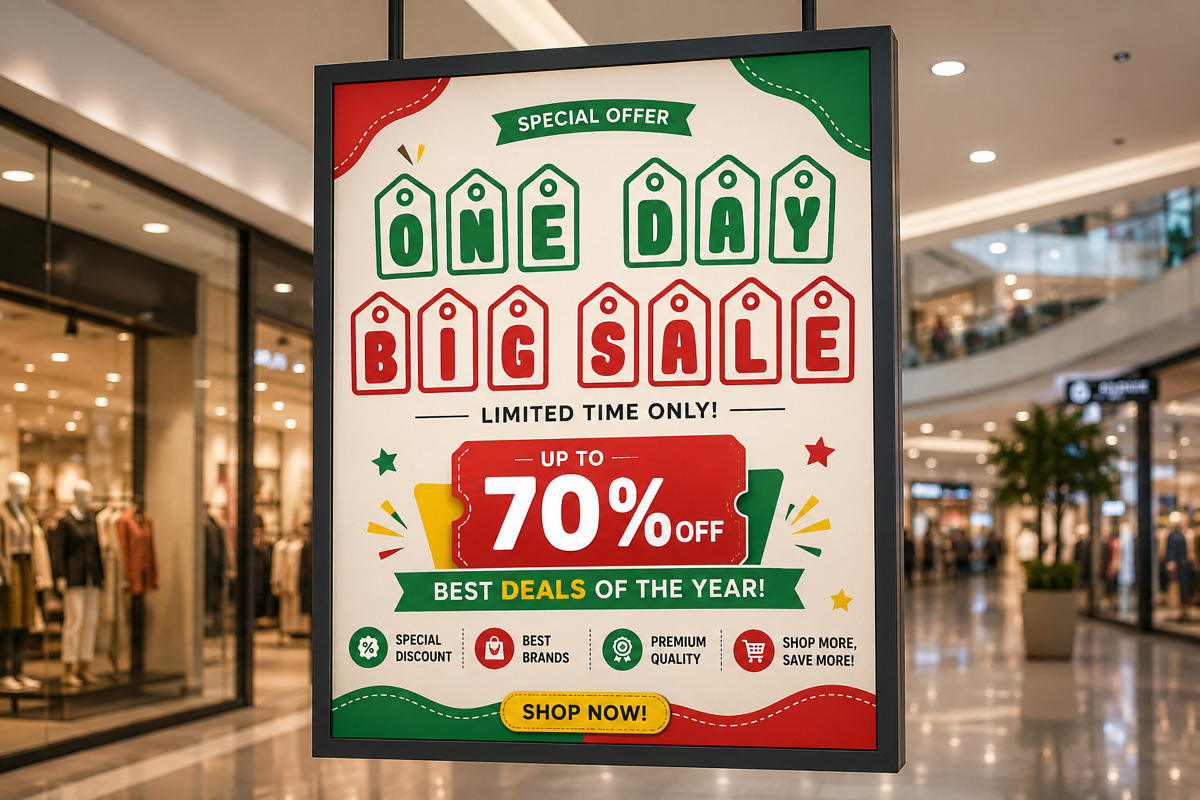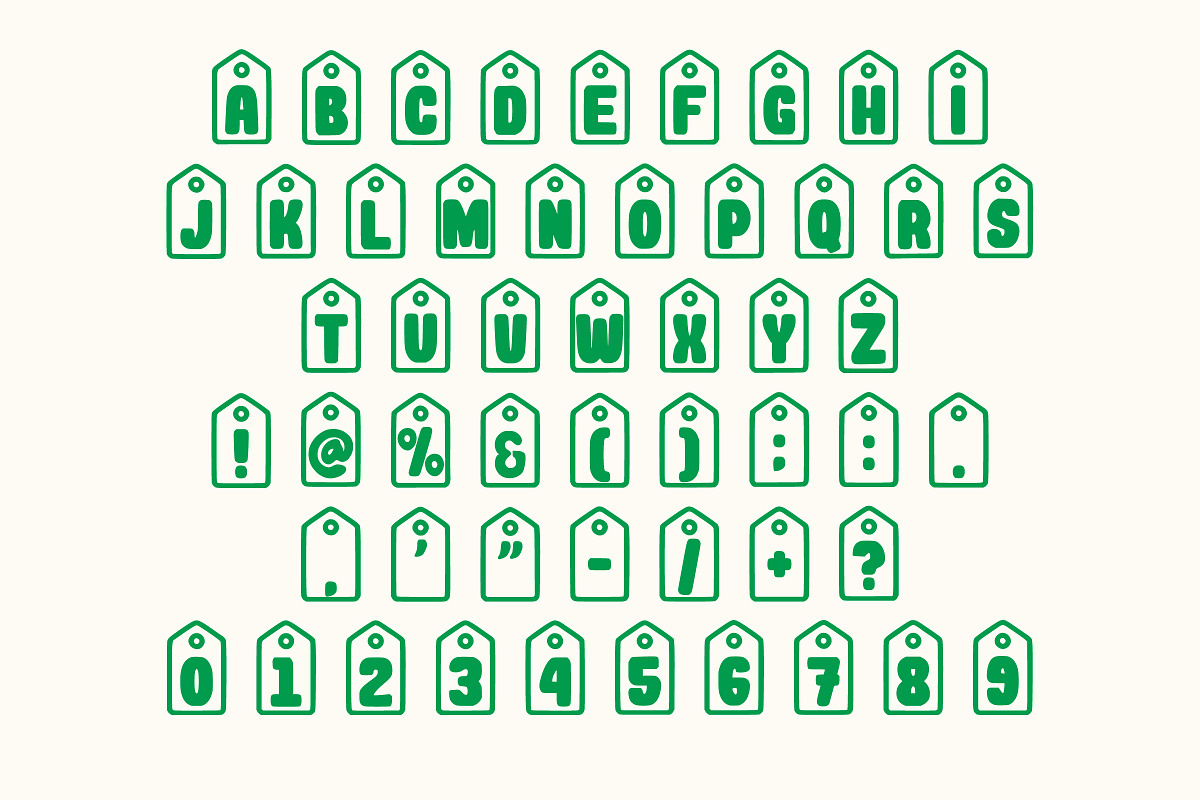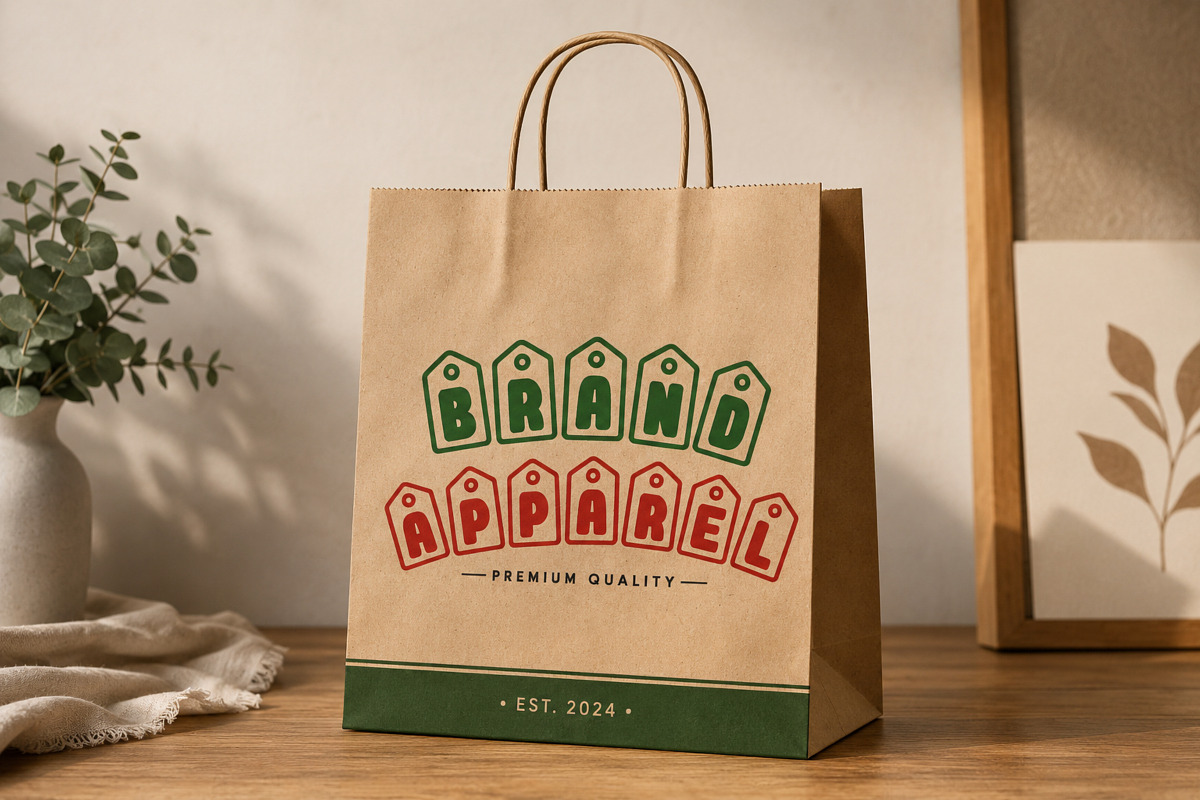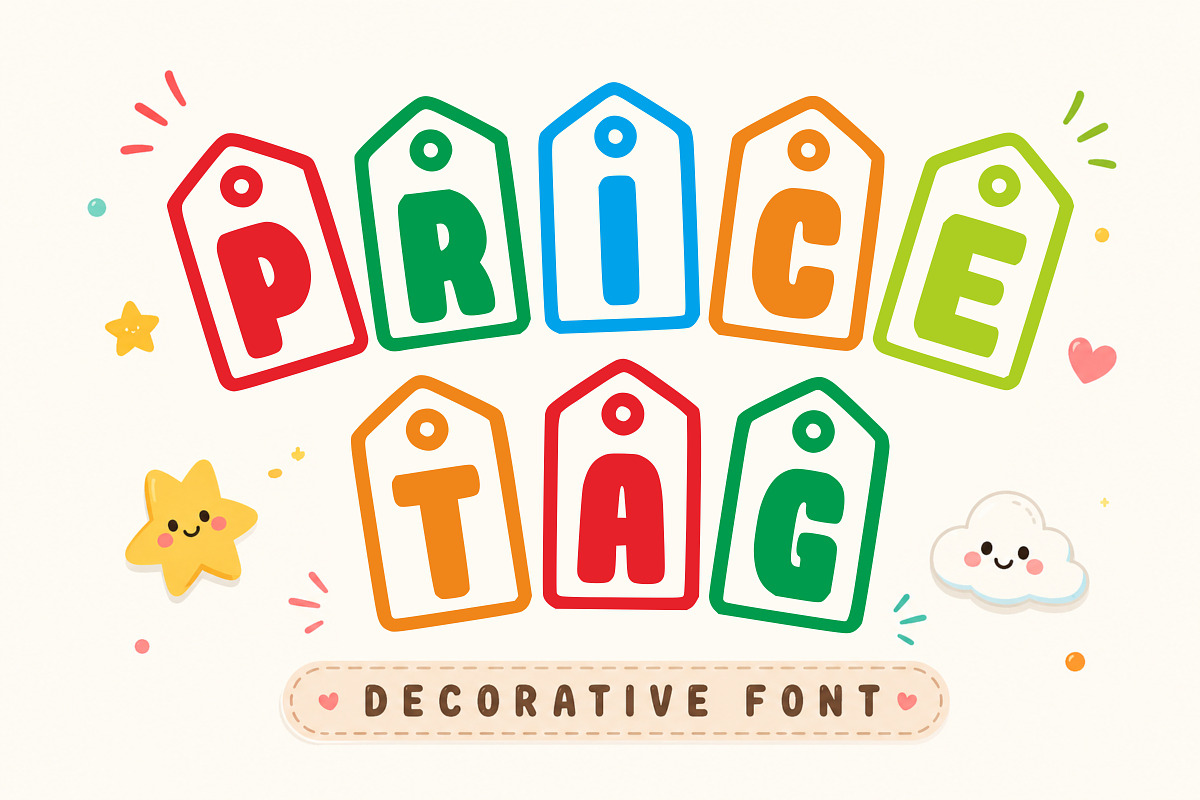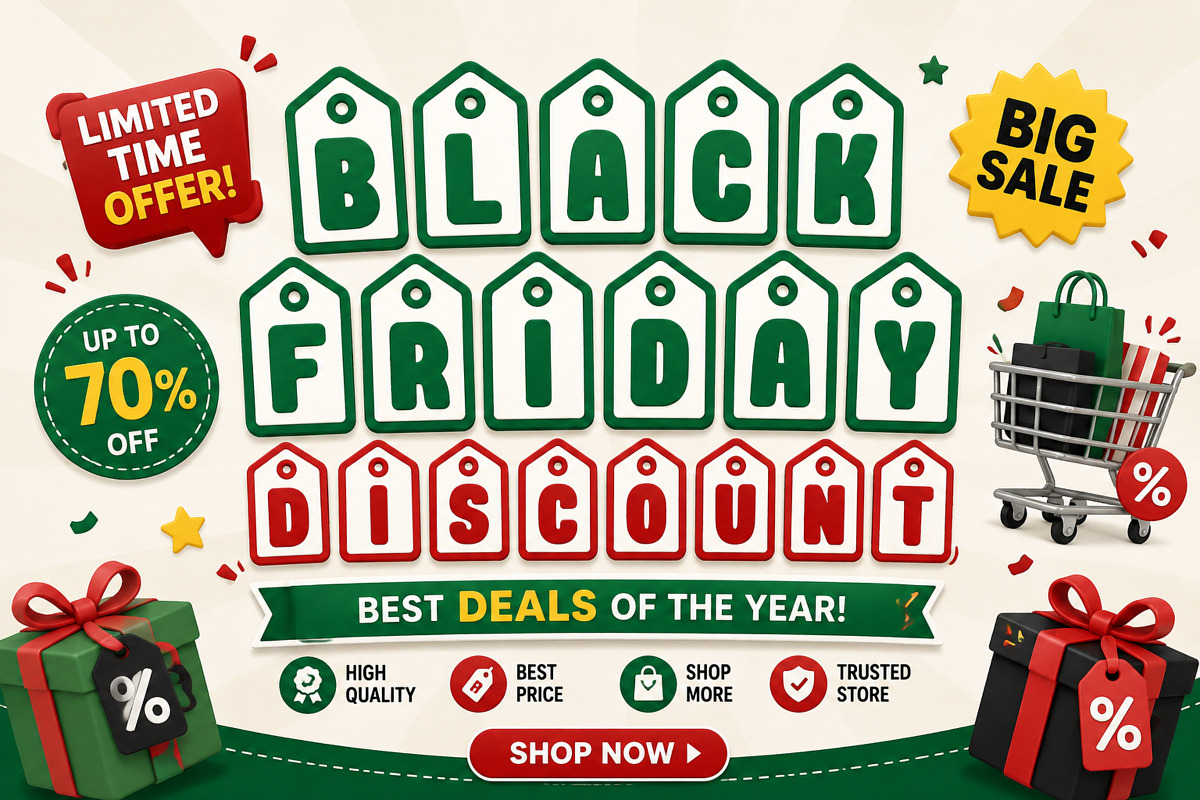
Price Tag - Cute Decorative
Price Tag Font is a fun and cheerful decorative display typeface inspired by classic retail price tags. Each character is designed as a hanging tag, making it ideal for shopping-themed designs, Black Friday campaigns, sale banners, product labels, logos, stickers, packaging, social media graphics, Cricut projects, and children's crafts.
Its bold, playful appearance creates a friendly and modern look that instantly grabs attention. Whether you're designing for print or digital media, Price Tag Font adds a unique retail-inspired personality to every project.
Black Friday Promotions
Flash Sale & Discount Posters
Store Branding
Price Labels & Tags
Cricut & Silhouette Projects
Stickers
Kids Designs
T-Shirts
Shopping Bags
Posters & Flyers
Retail Advertisements
Decorative Typography